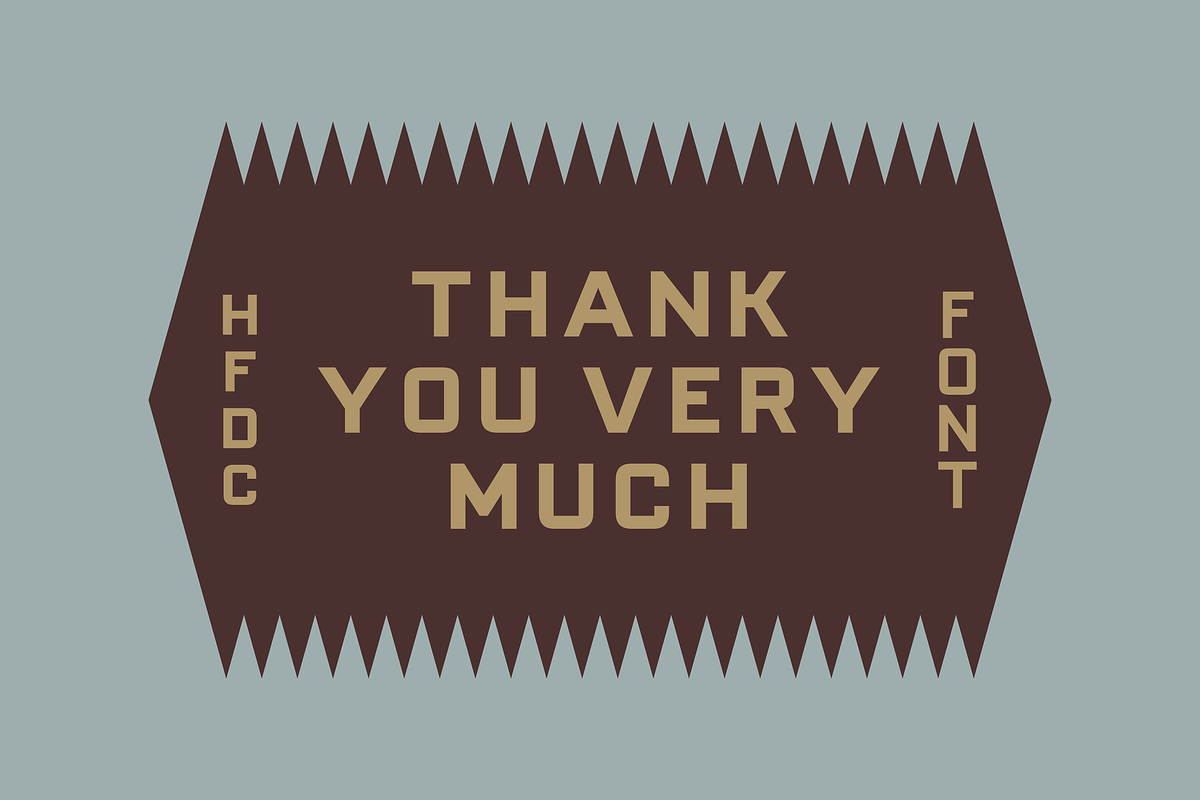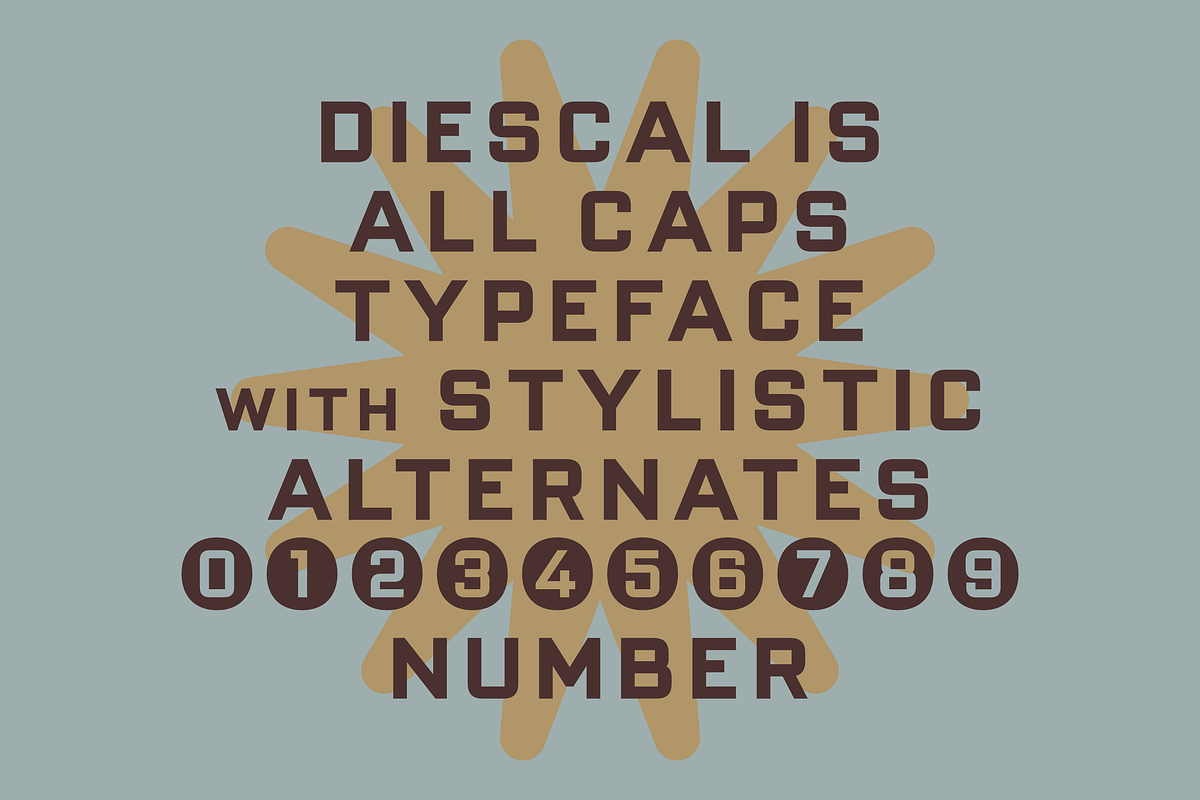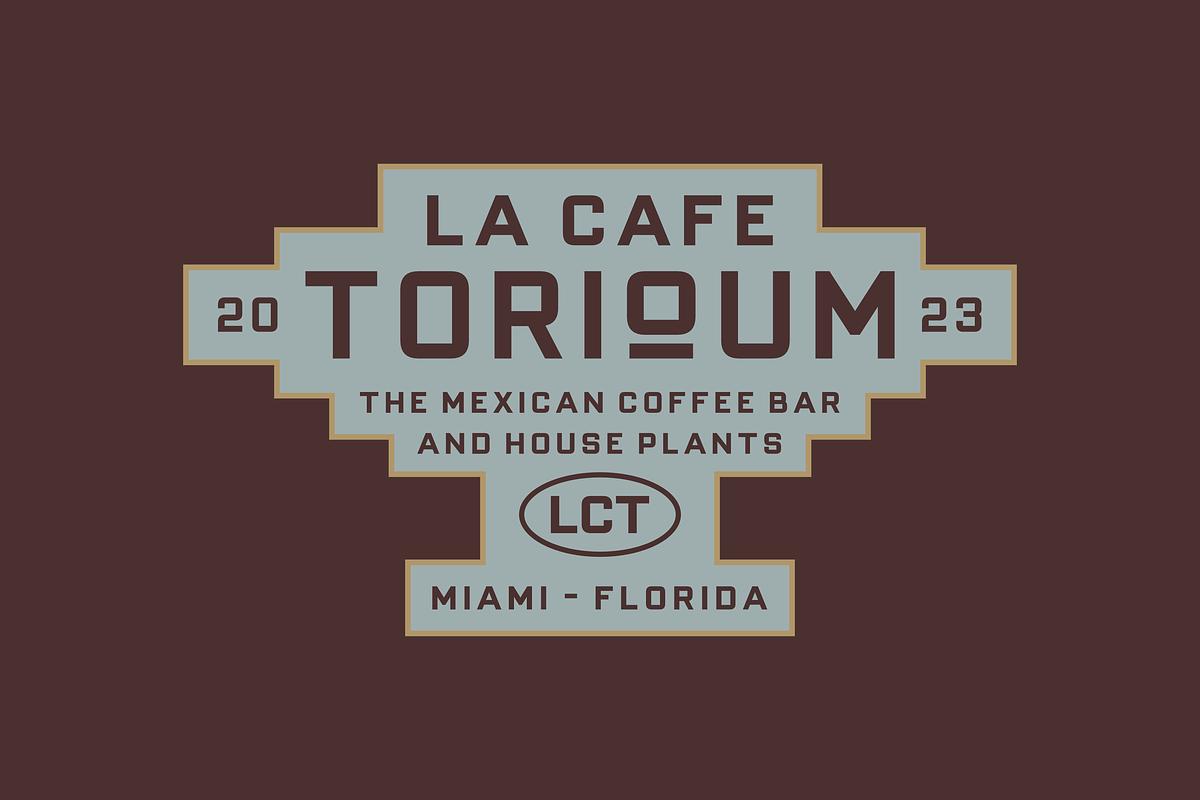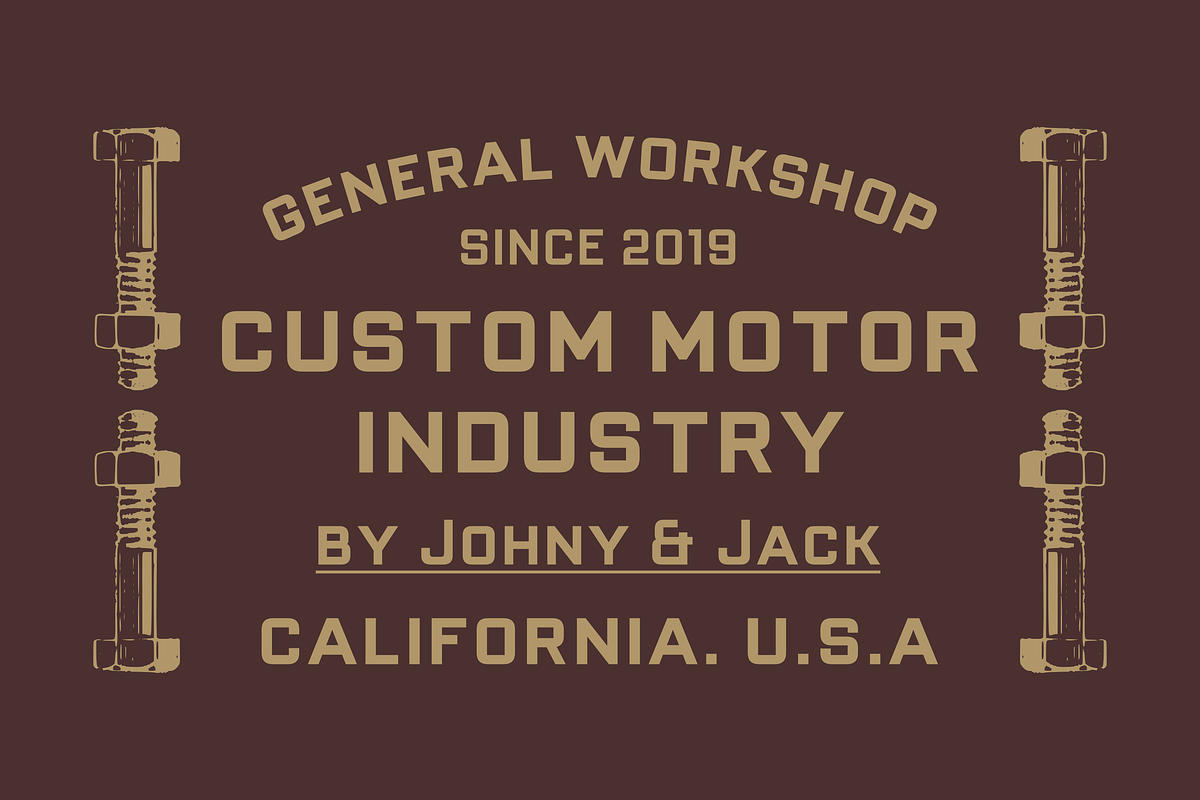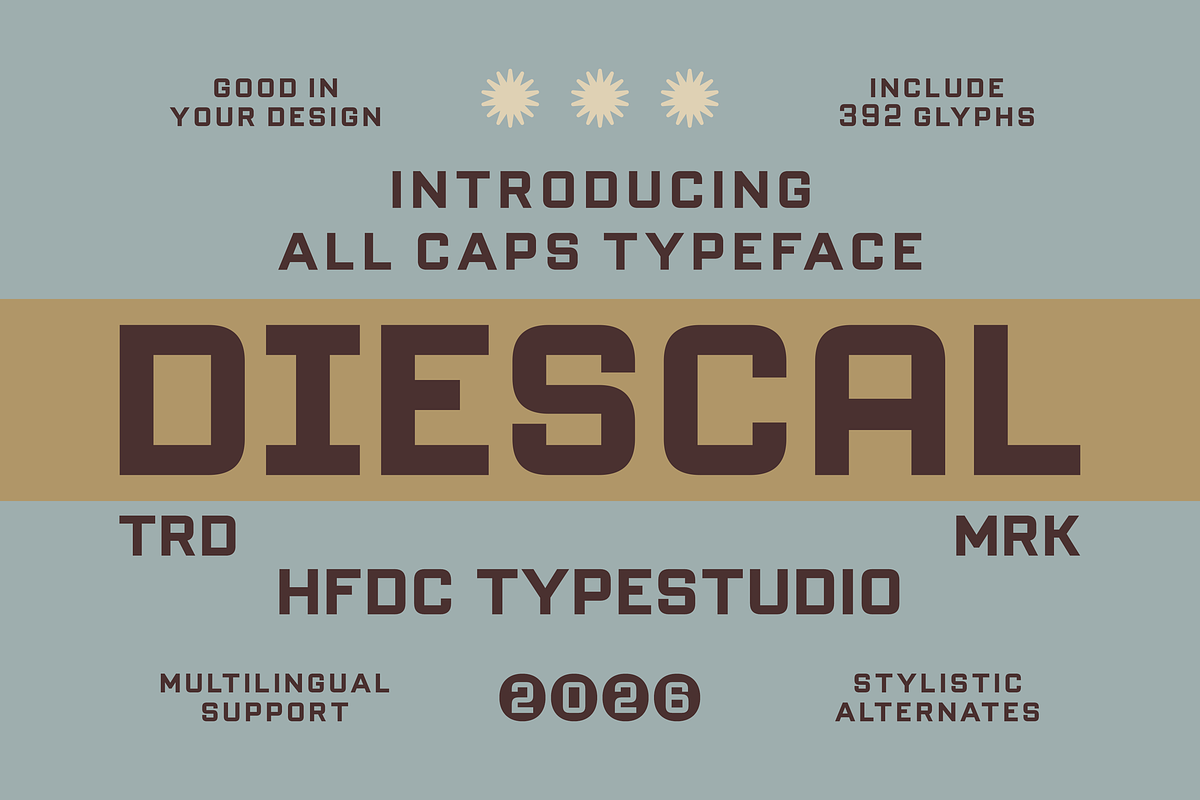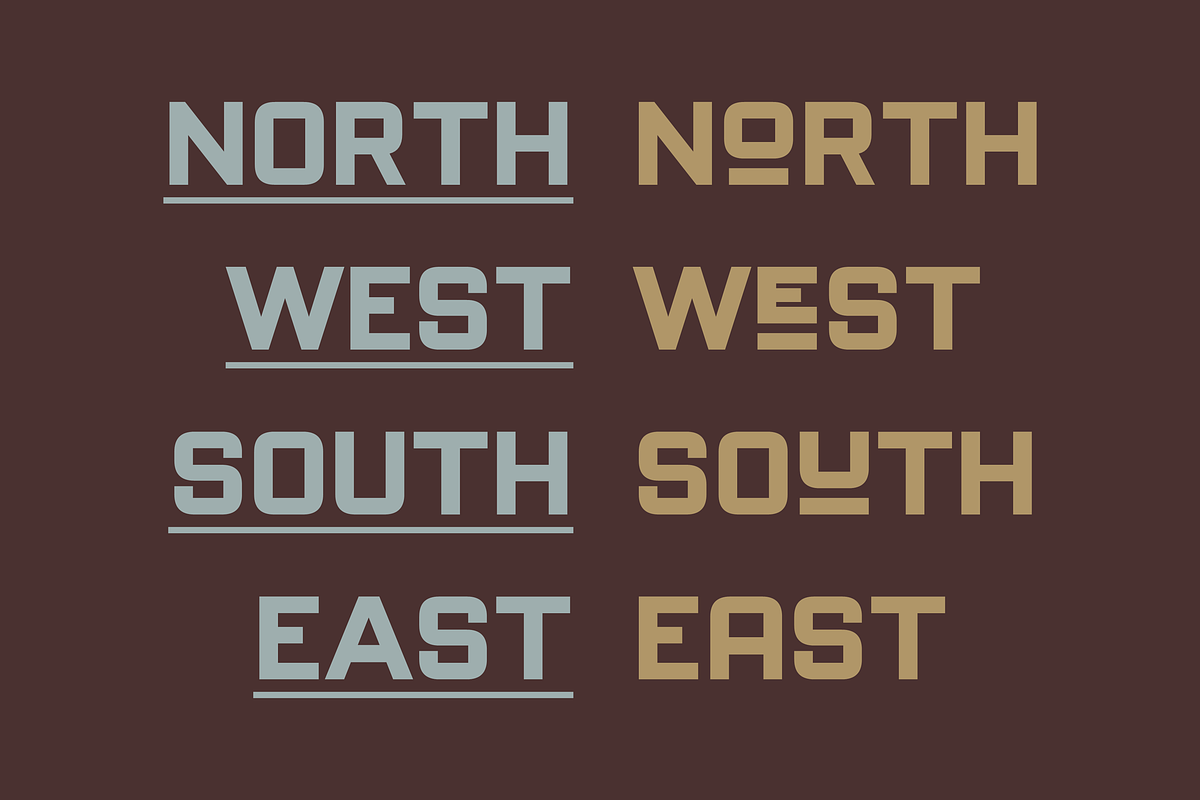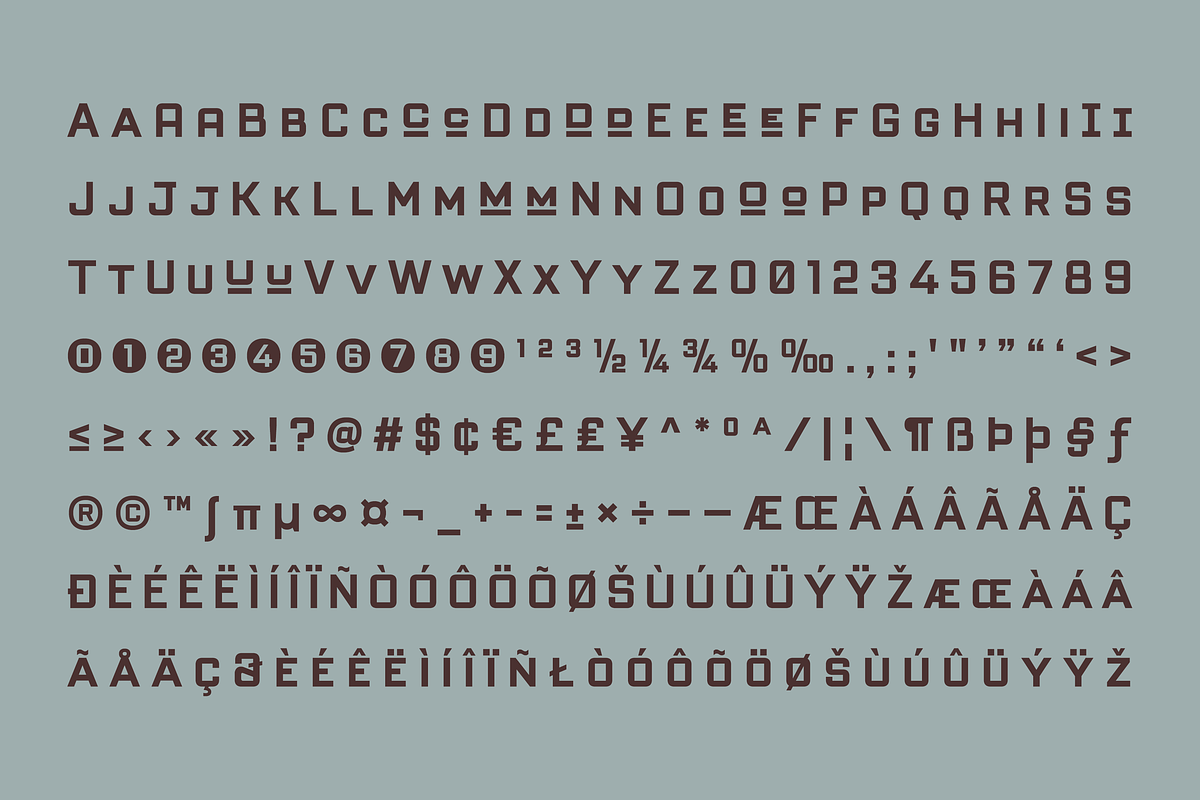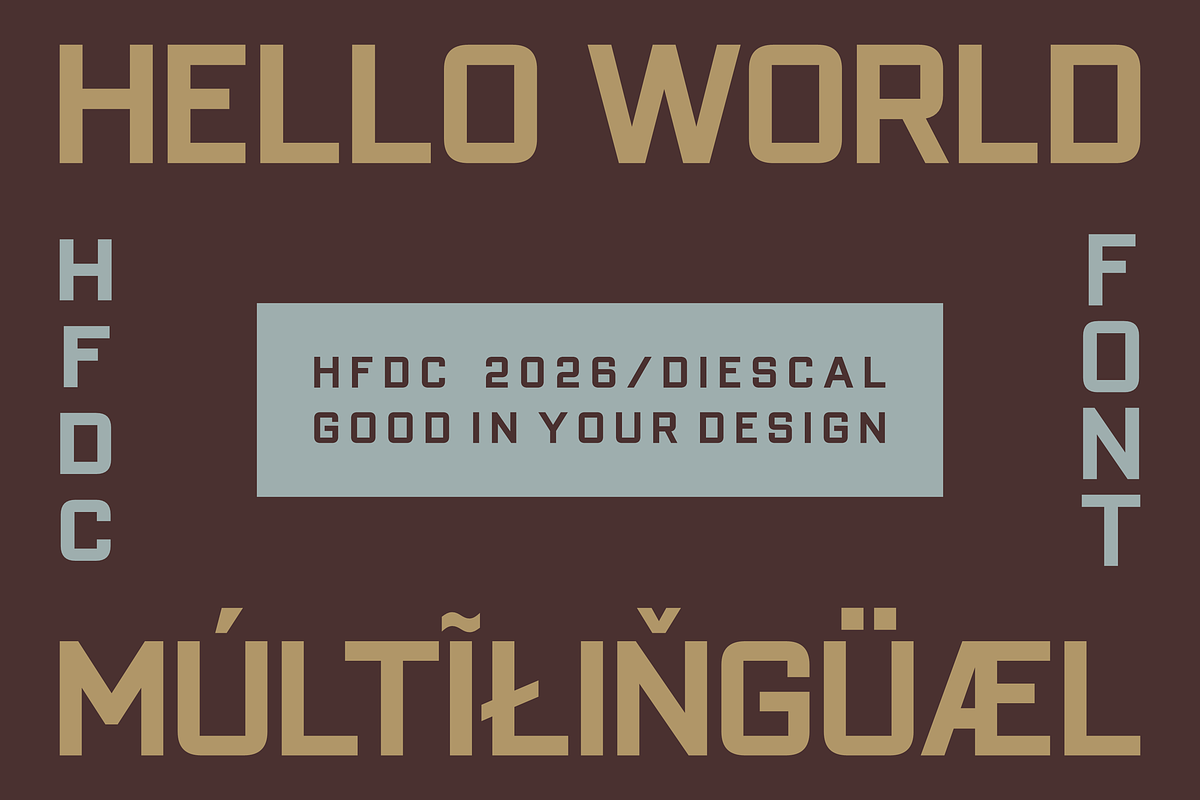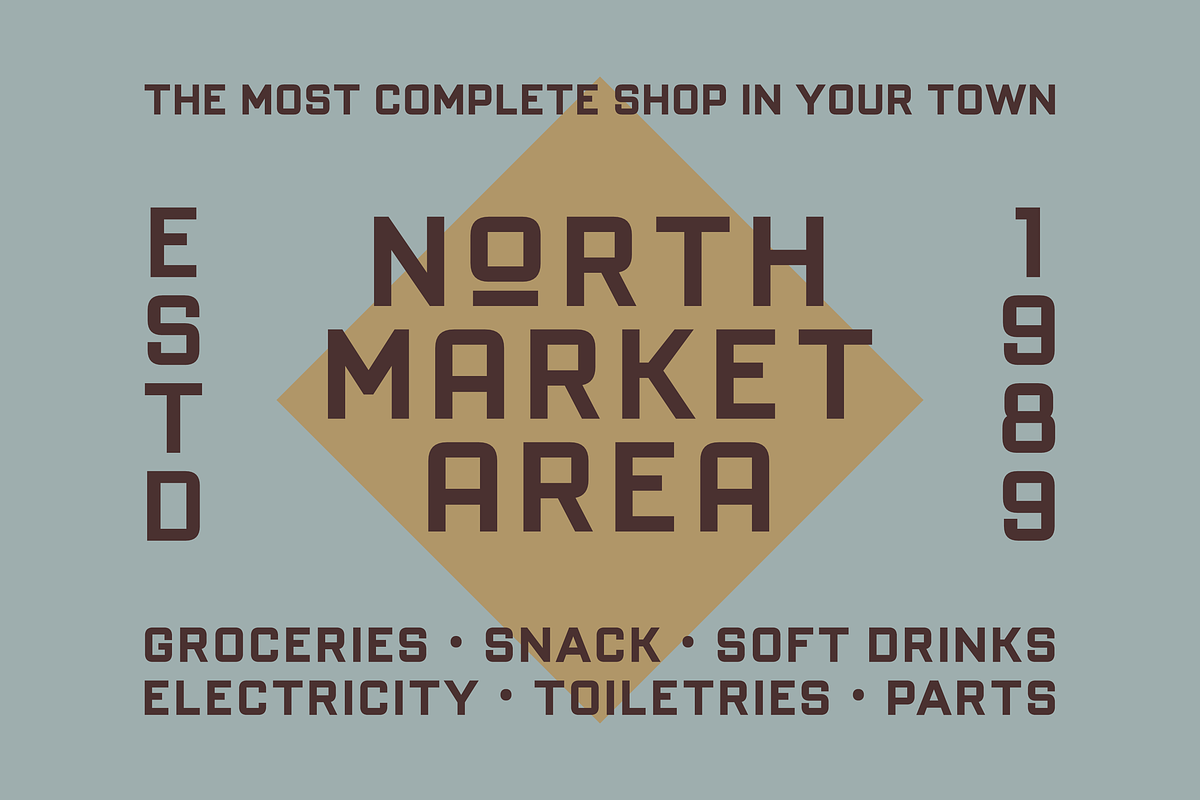
Diescal Typeface
Introducing Diescal, a captivating sans serif font that embodies a vintage charm while remaining refreshingly modern. With its bold all-caps design, Diescal is perfect for a variety of applications, including logos, movie posters, and branding projects. Its classic aesthetic ensures that it stands out while maintaining a timeless quality, making it an ideal choice for illustrations and website headlines. The font features an impressive set of over 350 glyphs, allowing for extensive multilingual use and stylistic flexibility, catering to diverse creative needs.
- All Caps Character
- Character Alternates